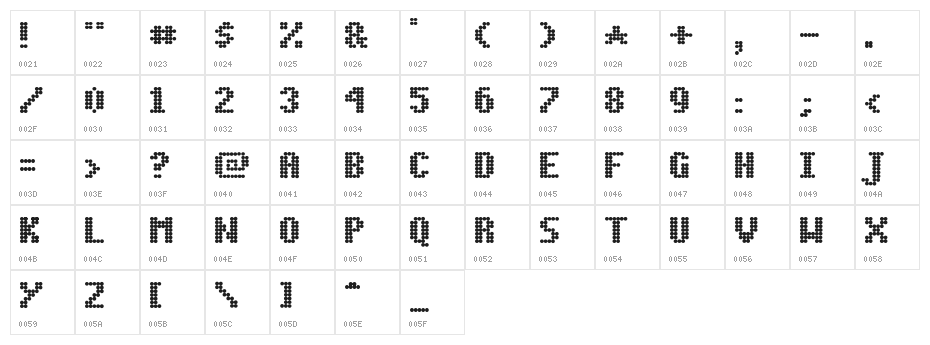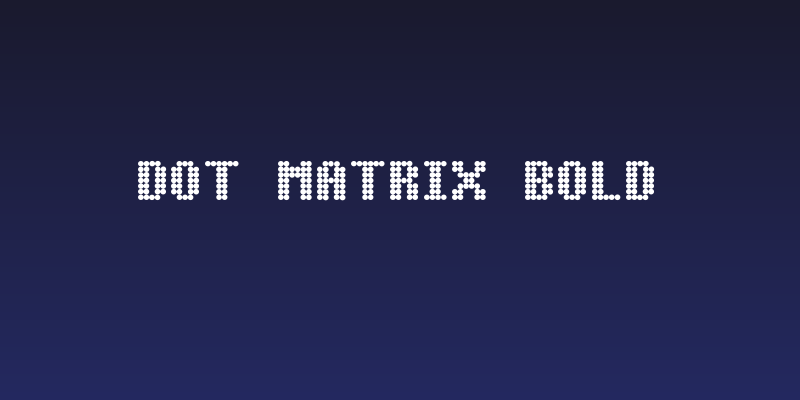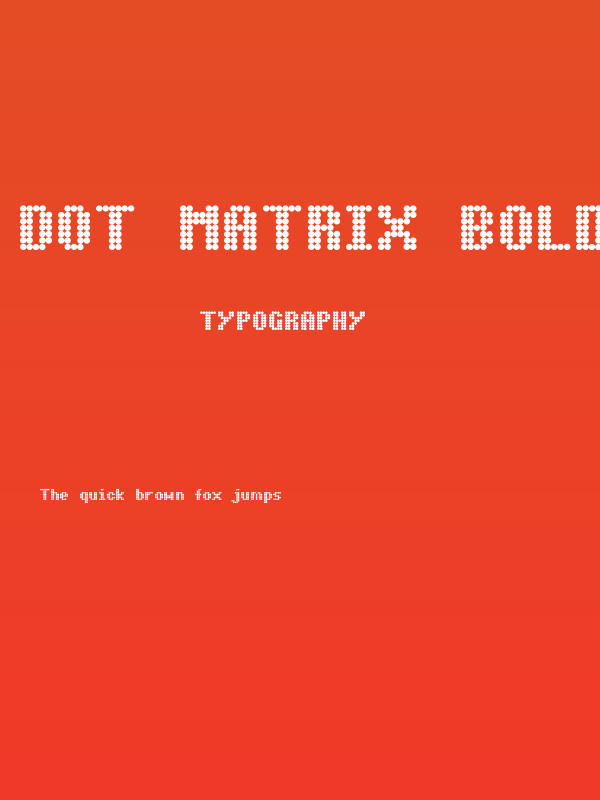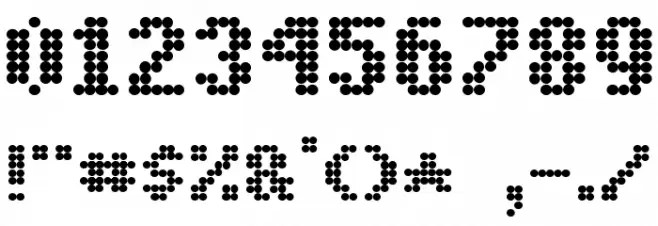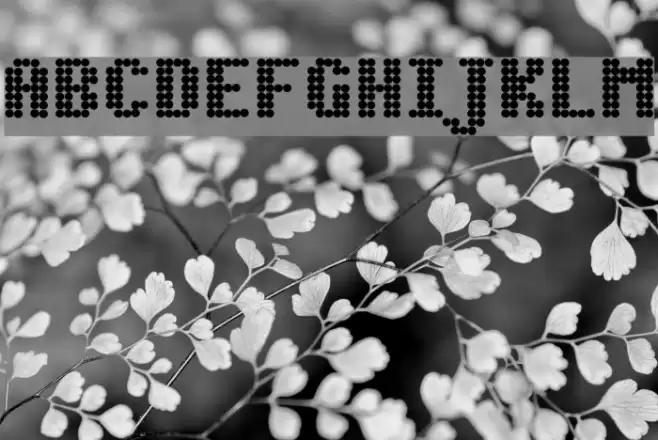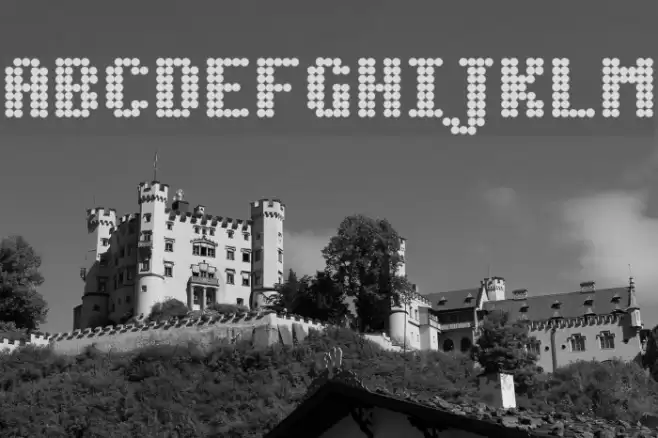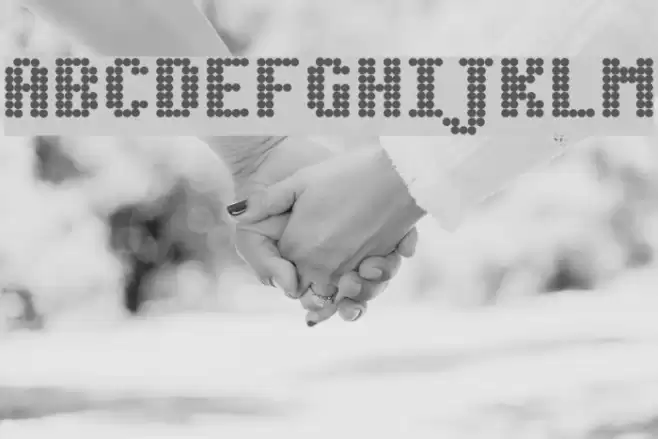
Dot Matrix Bold Font
Dot Matrix Bold Description
This font features a distinctive dot matrix design, reminiscent of old digital displays and printers. Each character is composed of a grid of dots, creating a bold and impactful appearance. The uppercase and lowercase letters maintain a consistent style, with rounded edges formed by the dots. Numbers and special characters are equally bold, ensuring readability and visual interest. The overall look is both retro and modern, making it suitable for projects that require a digital or technological aesthetic.
| Overall Style | Retro, Modern |
| Proposed Projects | Ideal for digital-themed designs, retro posters, tech branding, and any project needing a vintage digital feel. |